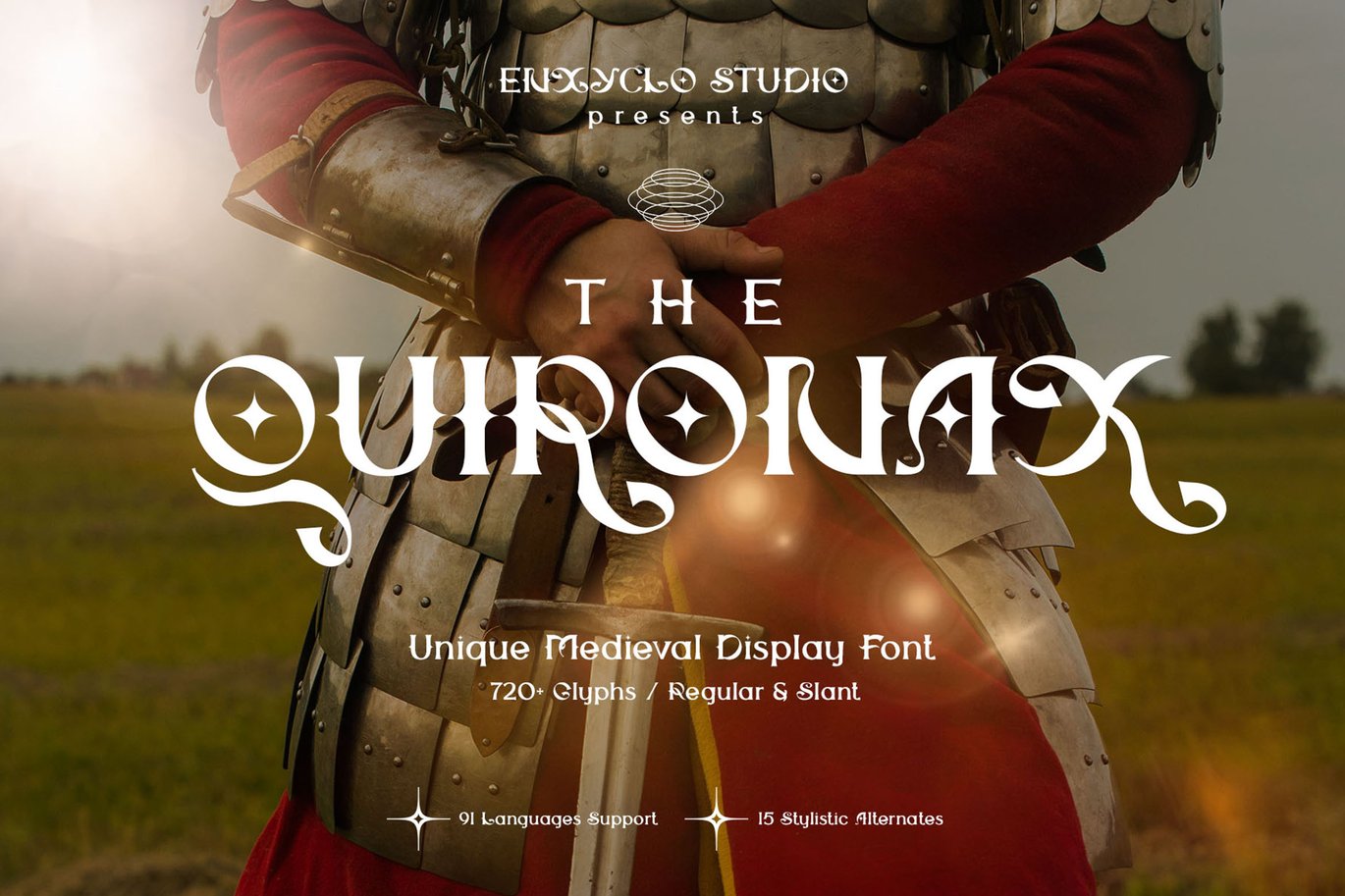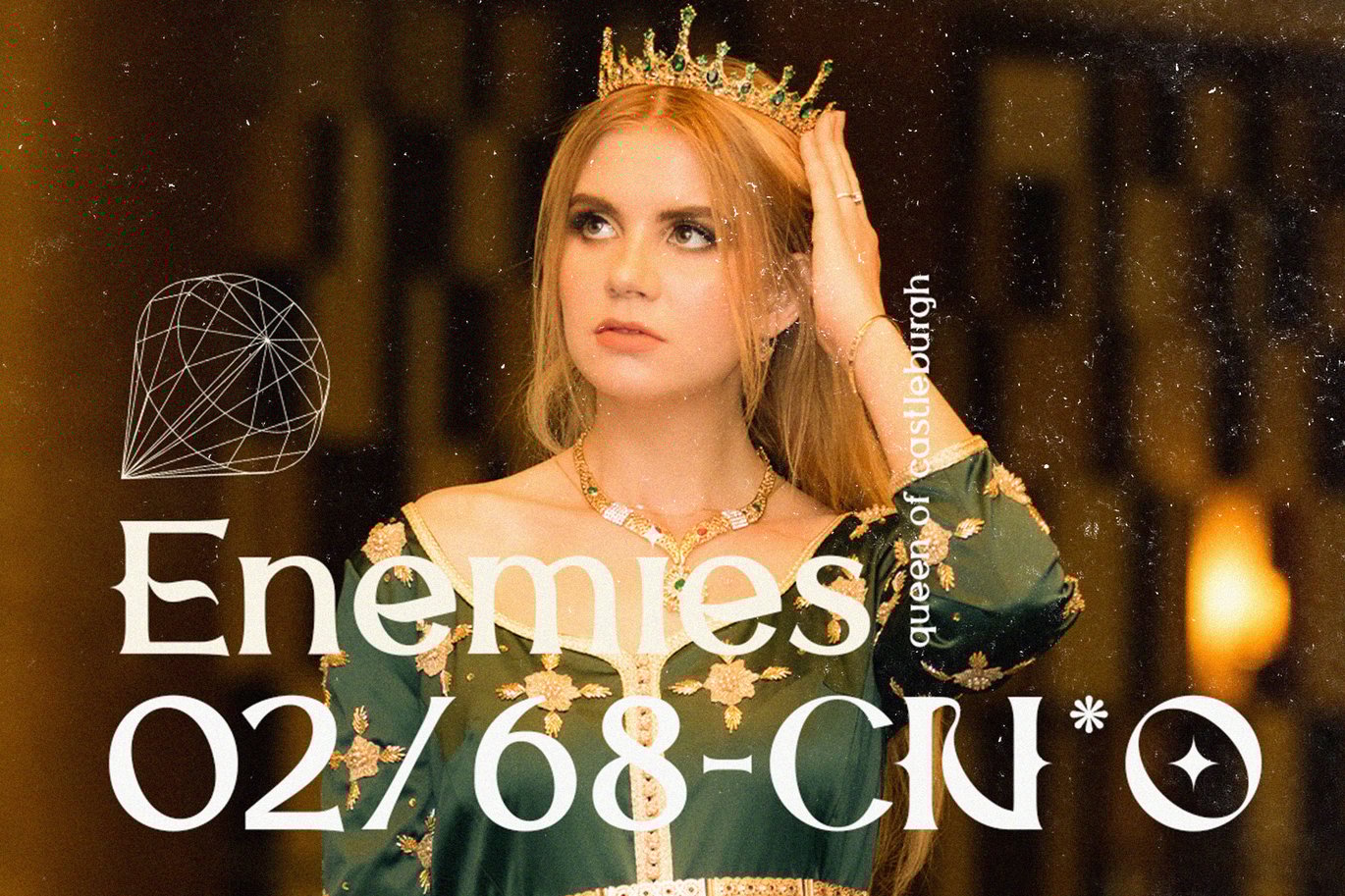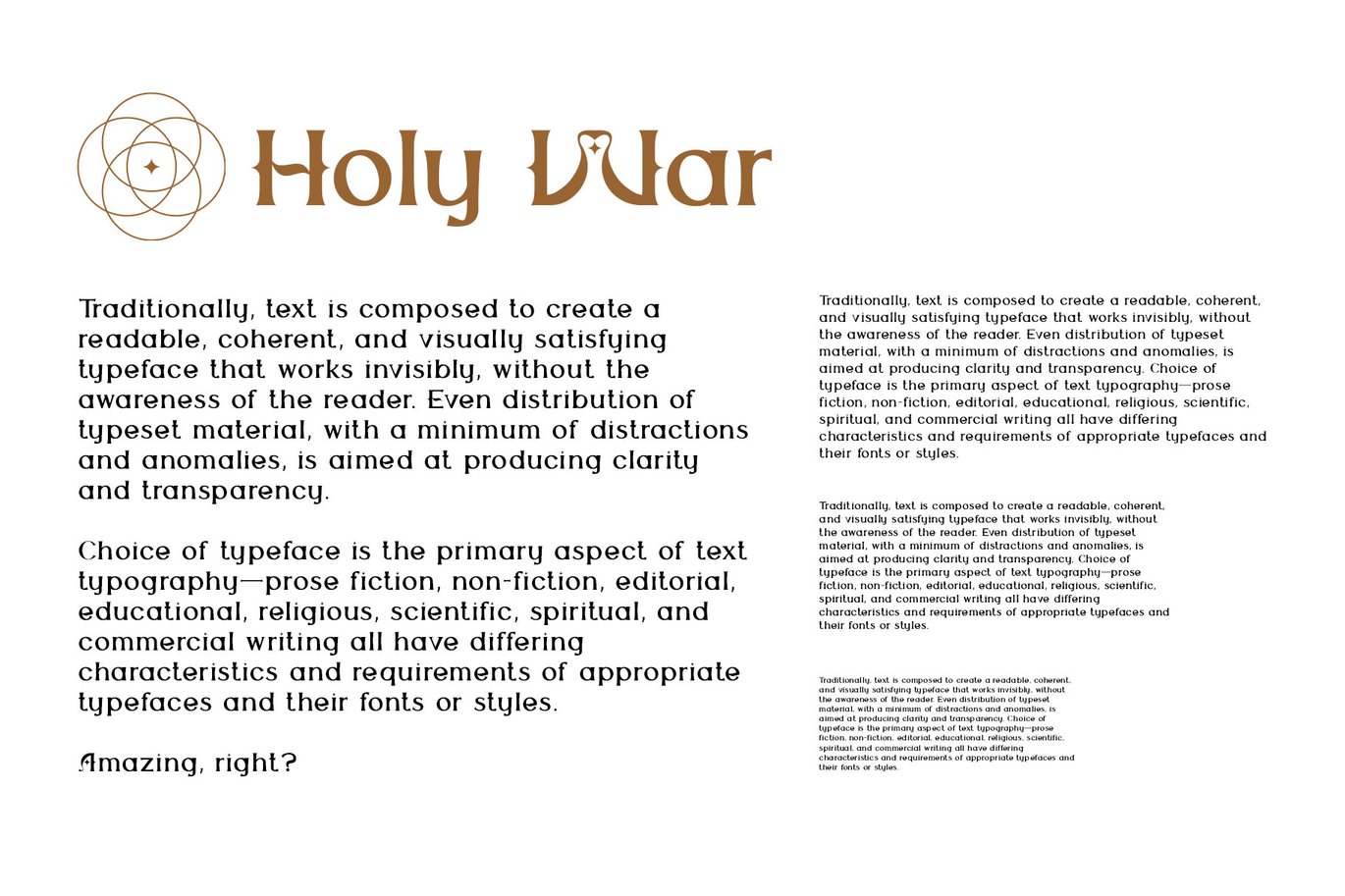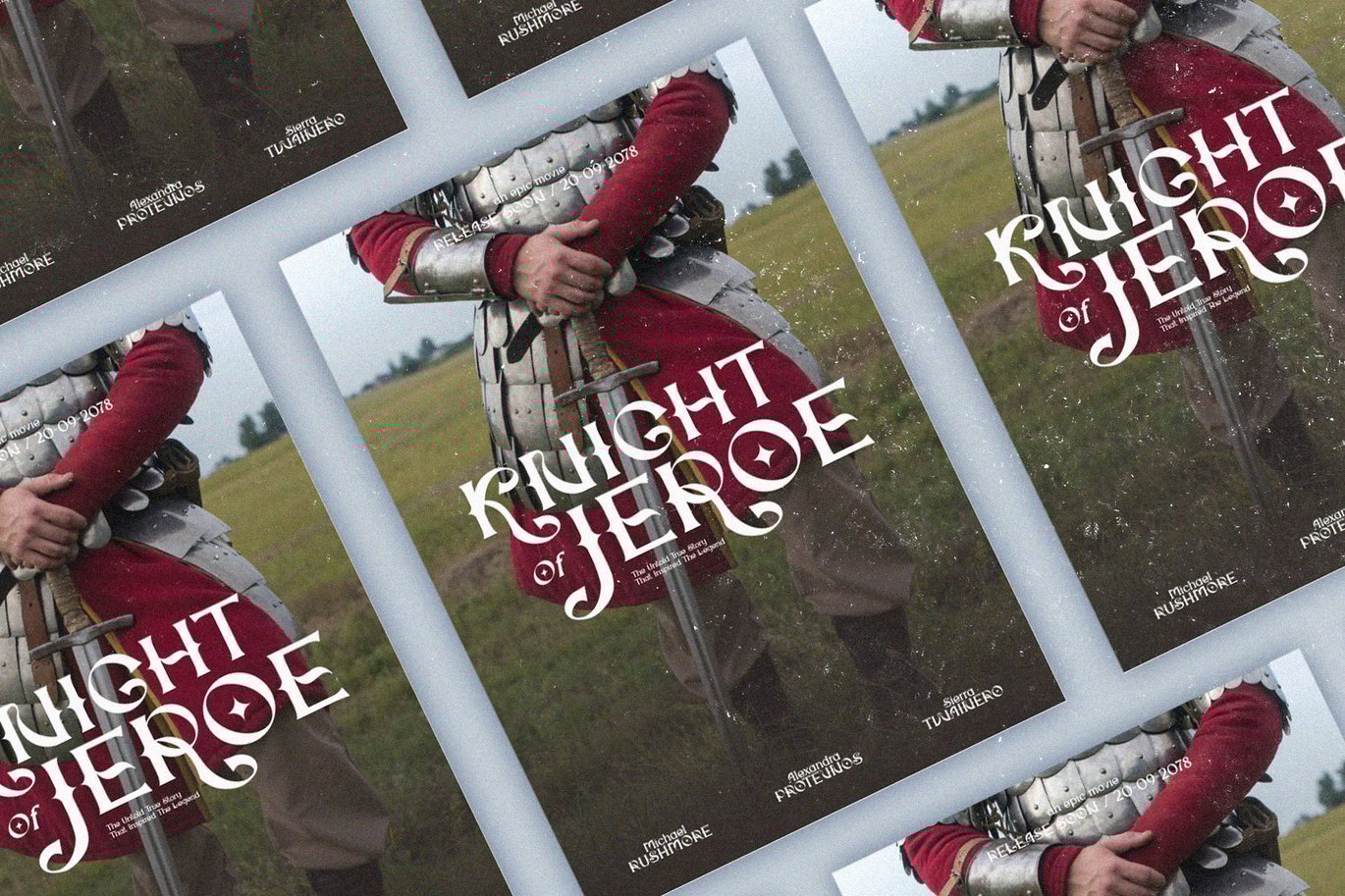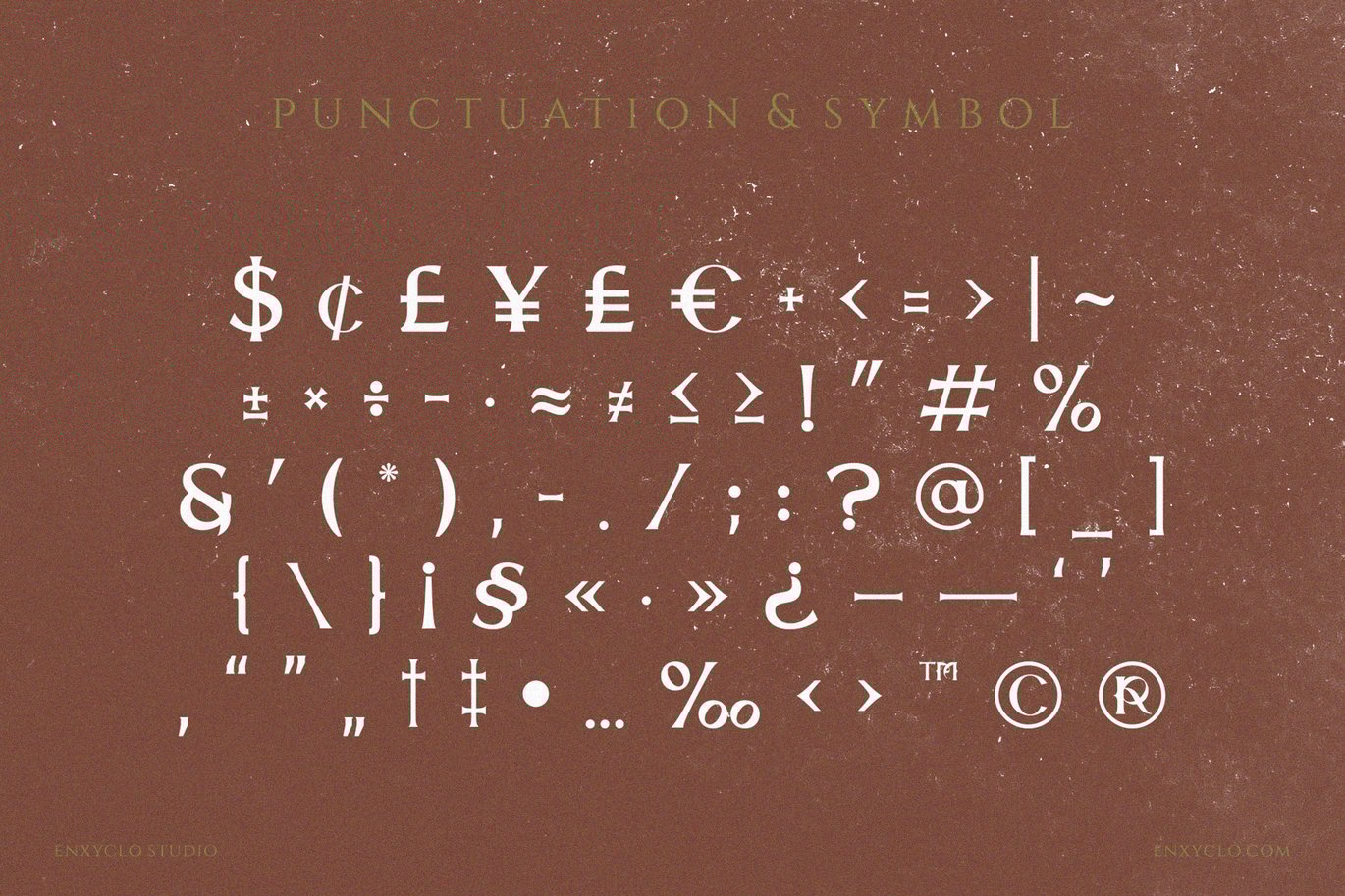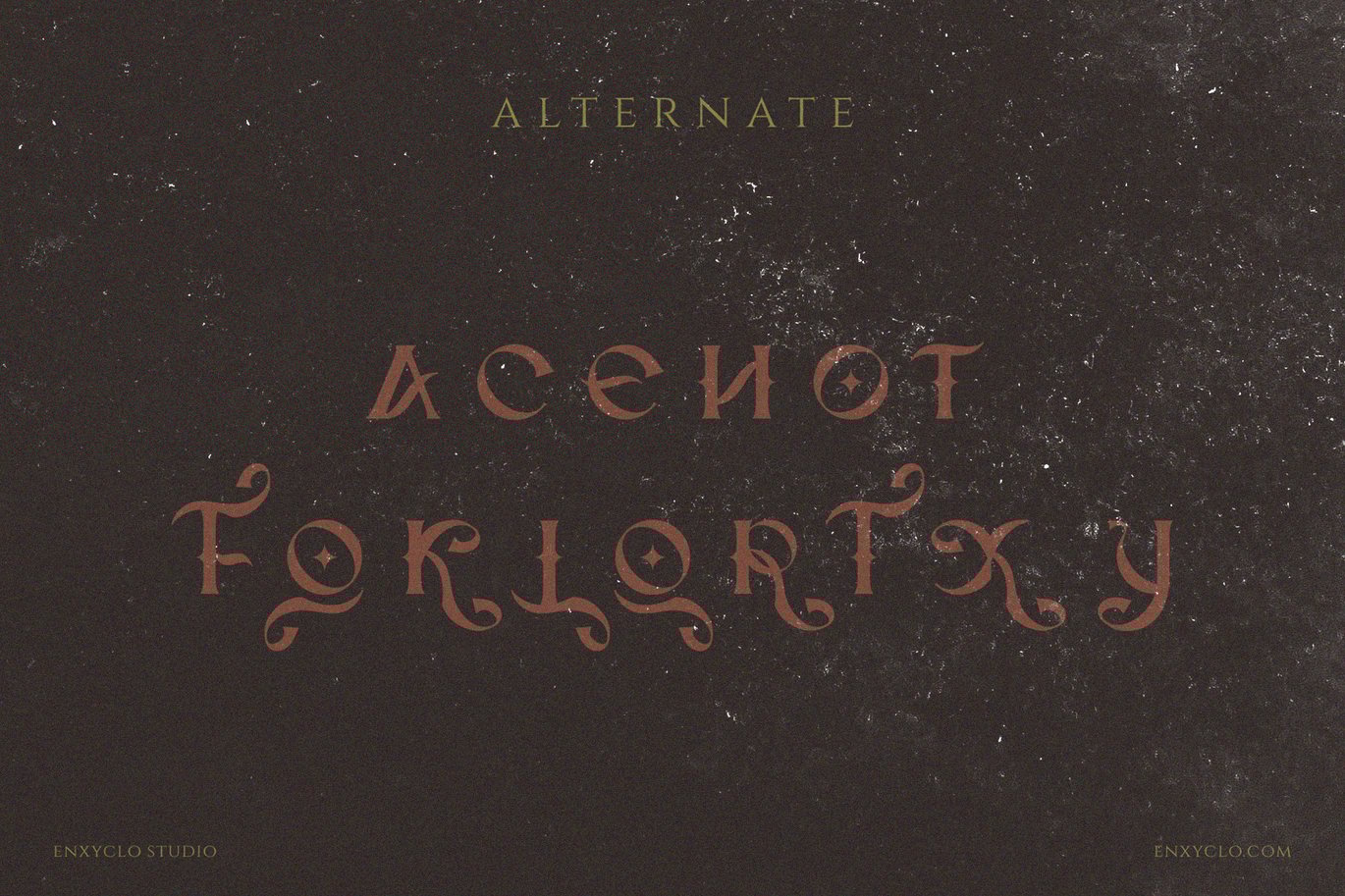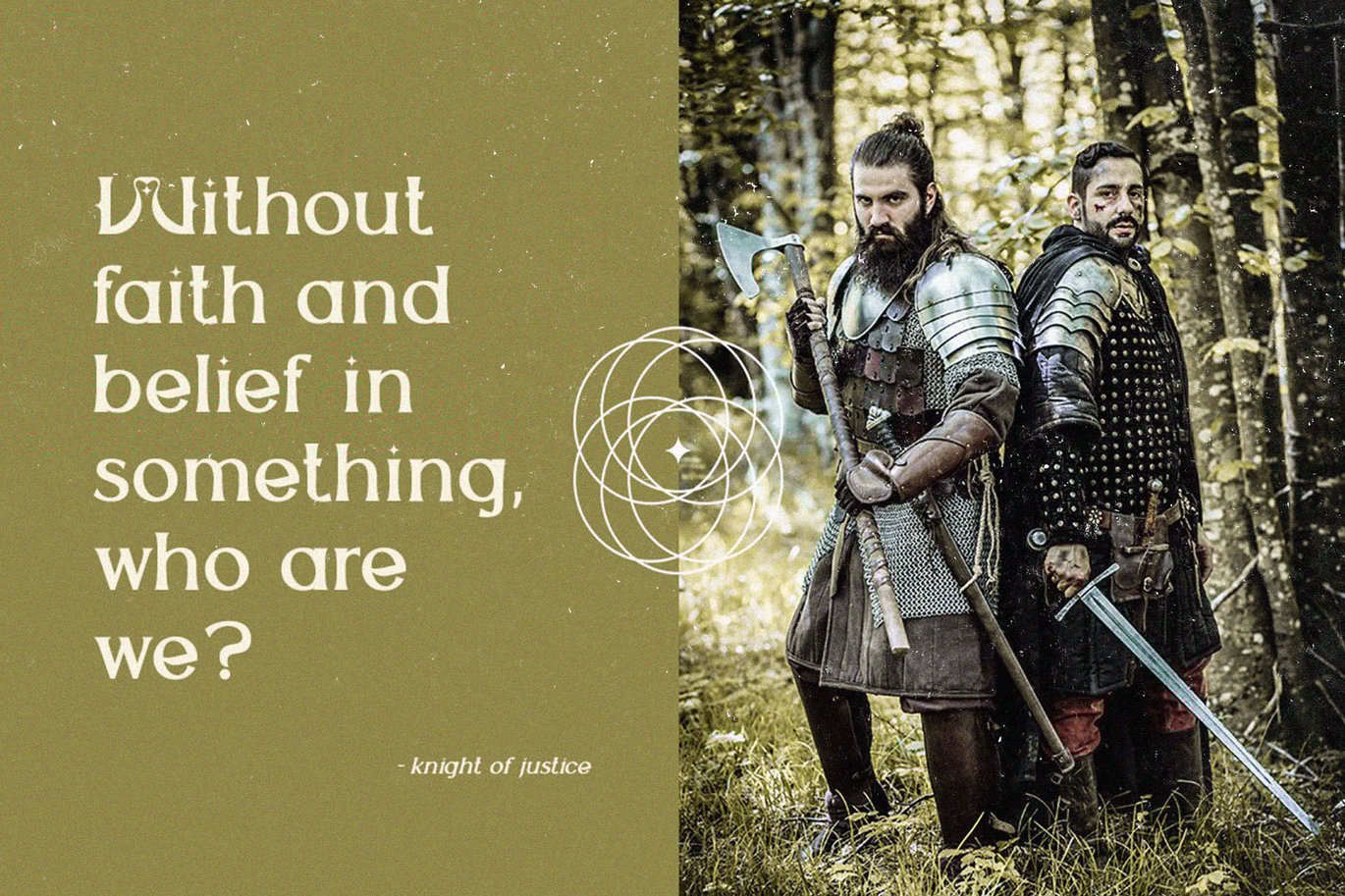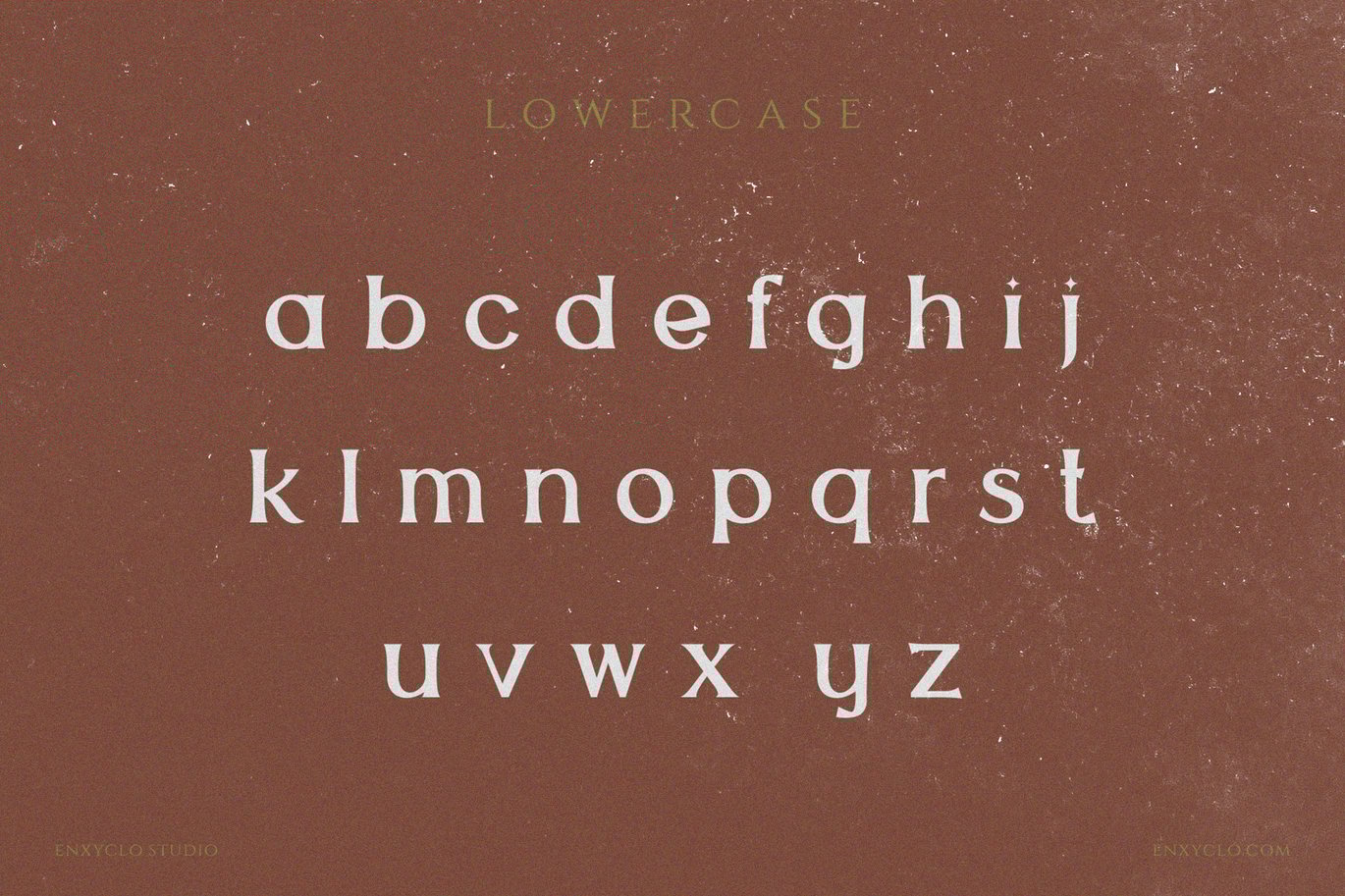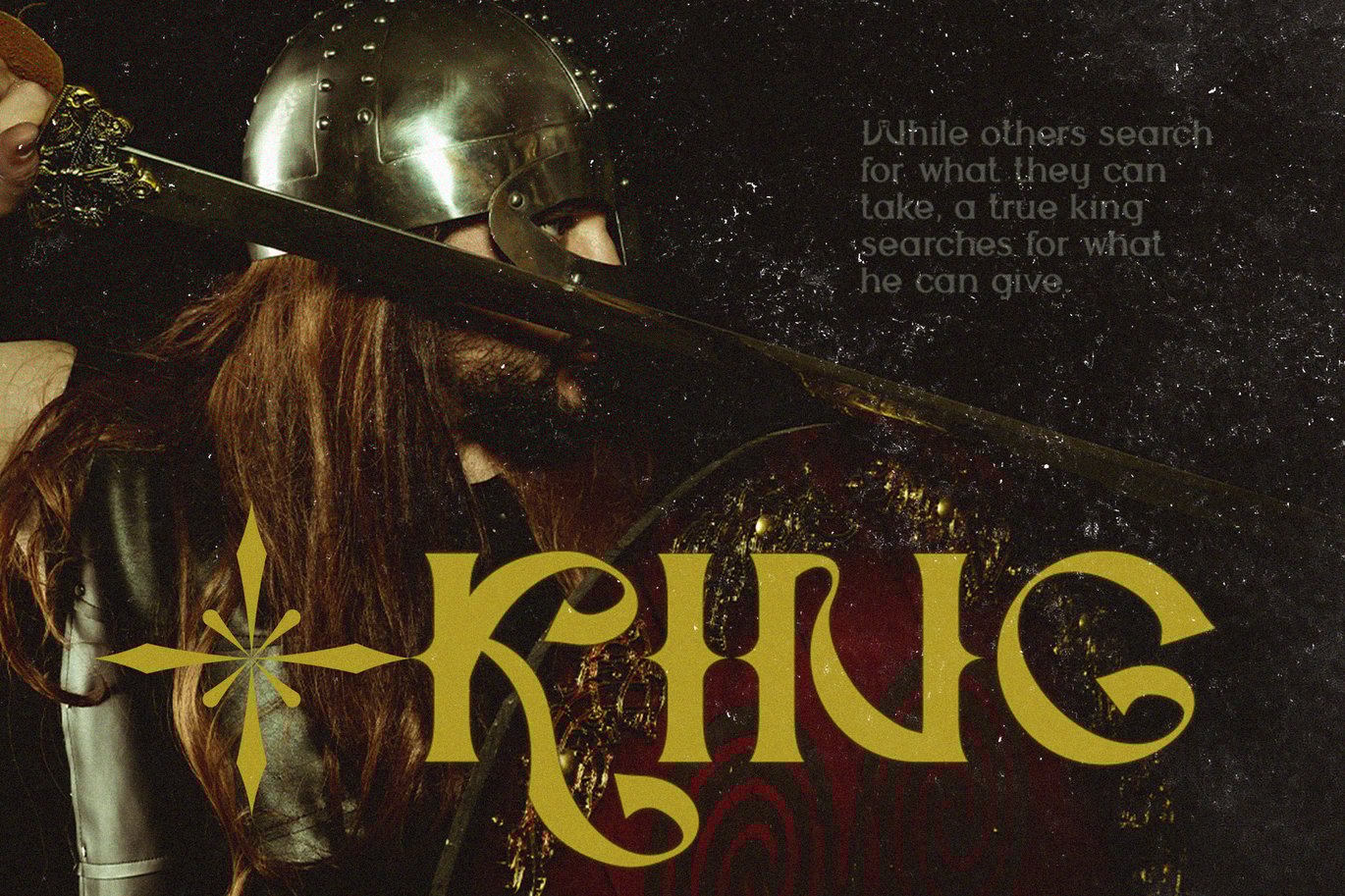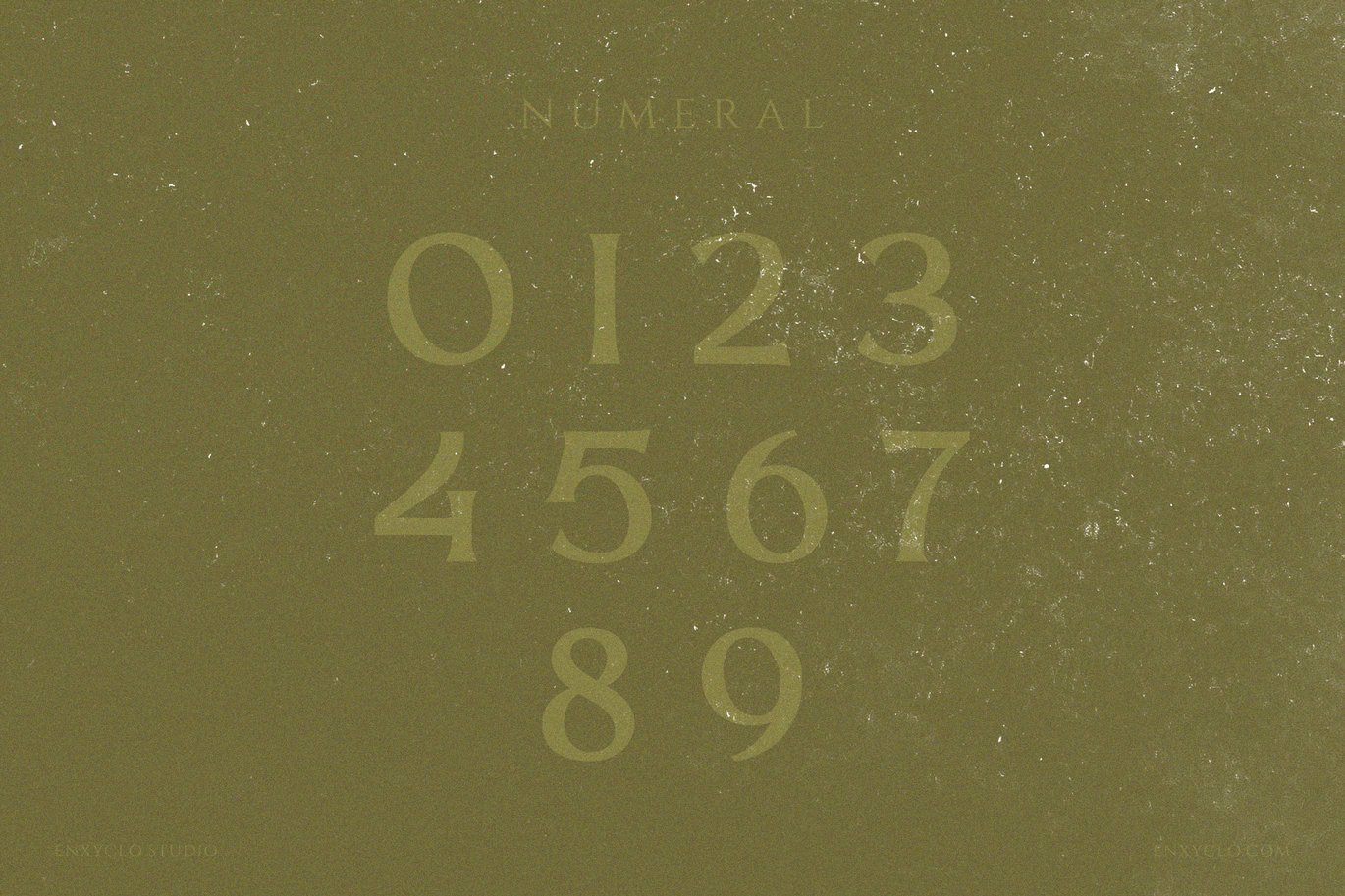
THE QUIRONAX – Medieval Display Font
THE QUIRONAX is unique medieval display font with bold and complex personality. It was purposely crafted to be used in large point sizes, although it doesn’t lose its magic in small point sizes.
It is simple, easy to read, and works equally as well in header and body text. With this beautiful font, absolutely you can make your project stand out from the rest. See the previews above to get some inspiration on how to use them.
- 2 Styles: Regular & Slant
- Contains 361 Glyphs for Each Style (Total: 722 Glyphs)
- Ligatures & Alternates
- Symbols & Currenc